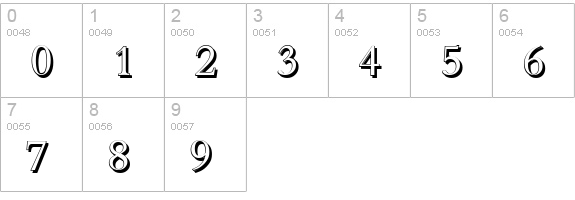
BernsteinShadow-Light-Regular Font Details
BernsteinShadow-Light-Regular is a refined, elegant variant in the BernsteinShadow typeface family \xE2\x80\x94 well suited to elegant body text, refined sub-headings, and luxury branding.
BernsteinShadow-Light-Regular font is a versatile typeface that effortlessly blends elements of both lightness and shadow, creating a unique and eye-catching design. The elegant and modern look of this font makes it perfect for a wide range of projects, from branding to editorial design. With its clean lines and balanced proportions, BernsteinShadow-Light-Regular font exudes sophistication and charm. The subtle shadow effect adds depth and dimension to each character, making your text stand out with a touch of flair. Whether you're designing a logo, poster, or website, BernsteinShadow-Light-Regular font is sure to make a lasting impression. Best of all, this font is available for free download at FontsMarket.com, allowing you to access its creative potential without any cost. Don't miss out on this stylish and versatile font for your next design project!